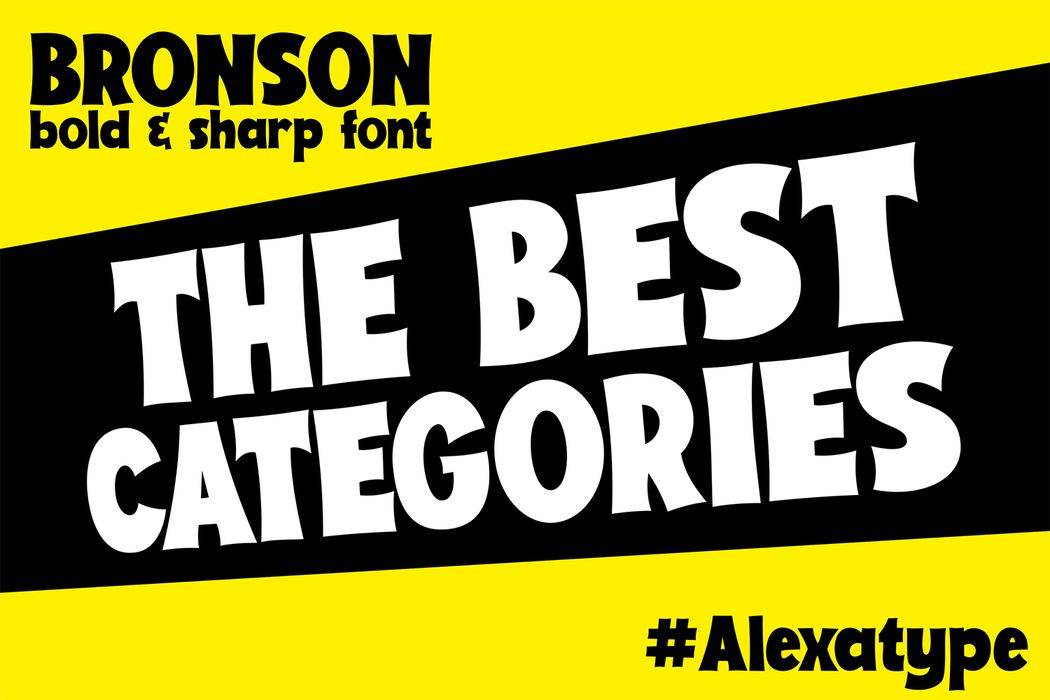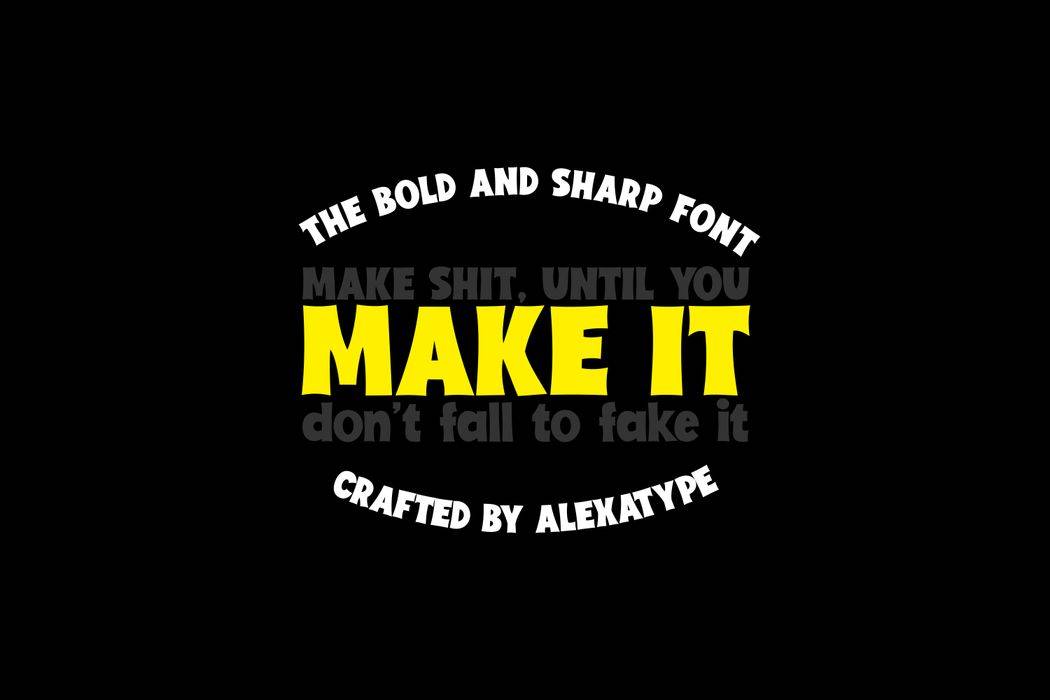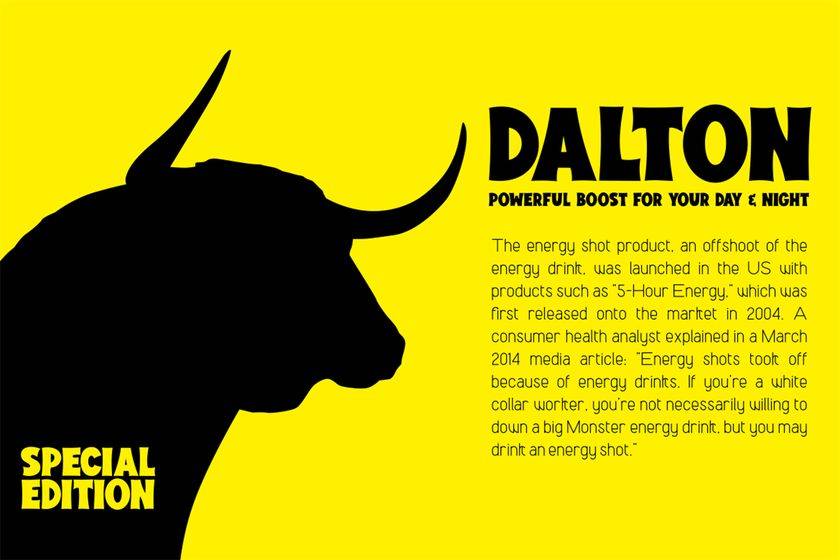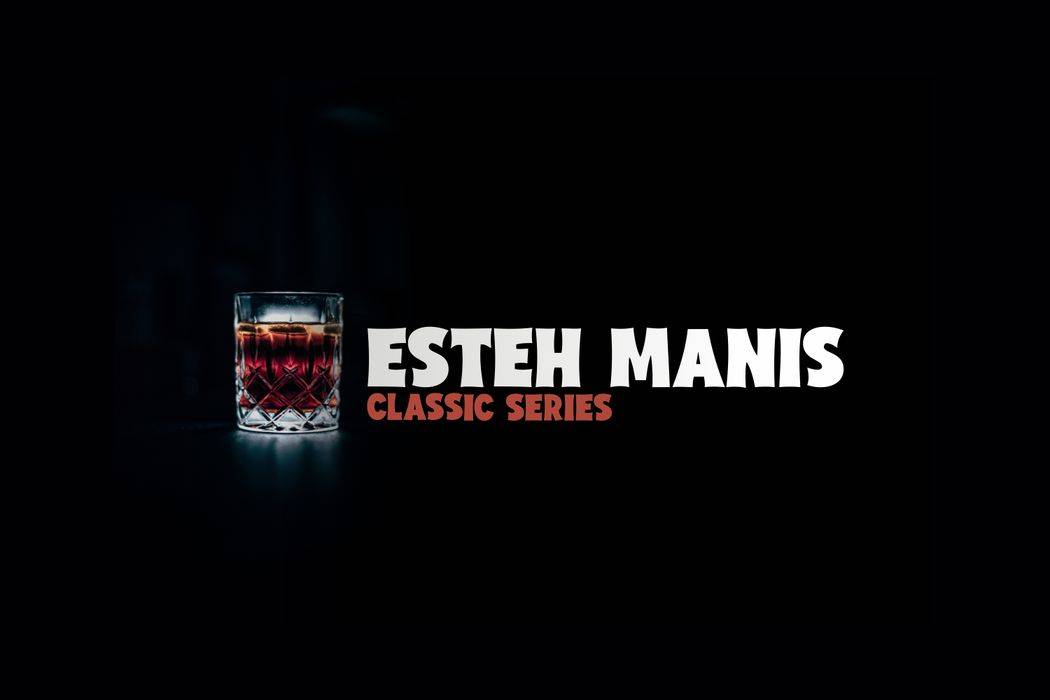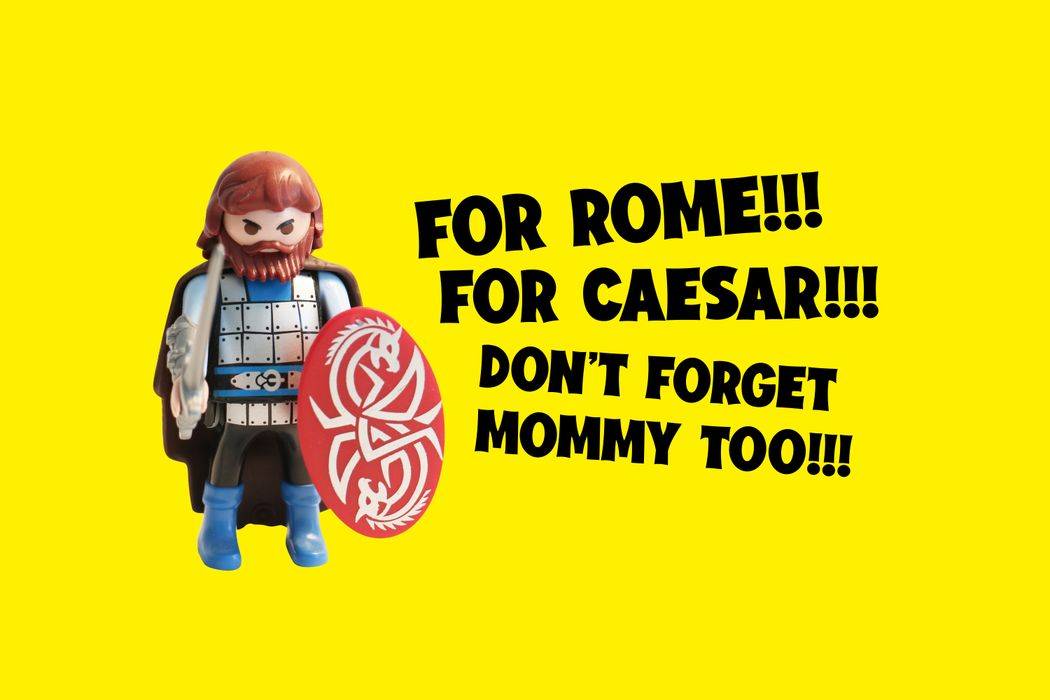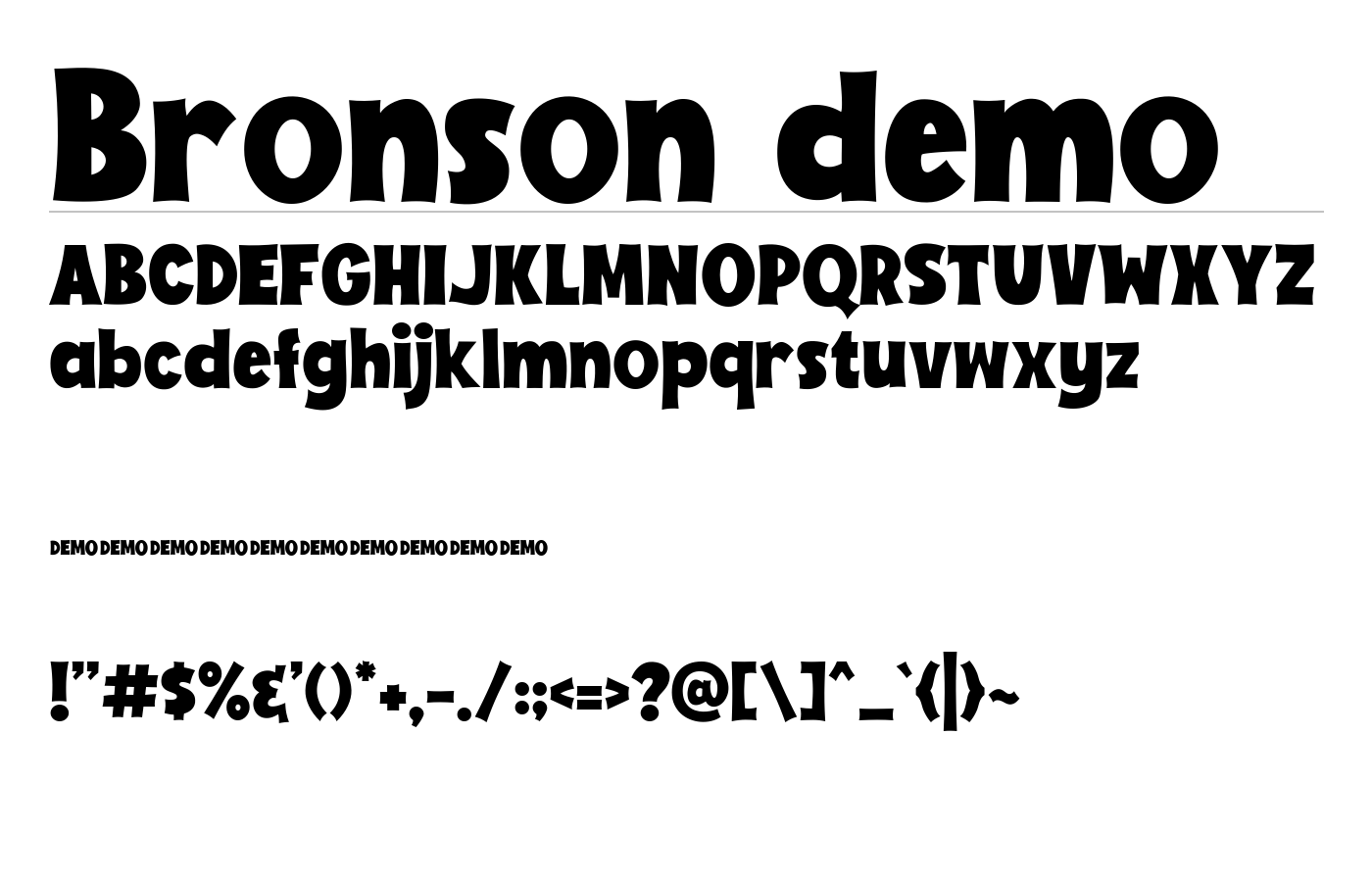
Bronson is a bold, playful sans serif font with thick, chunky letterforms and slightly irregular edges that give it a friendly, hand-crafted feel. Its wide, heavy shapes and moderate x-height make it ideal for eye-catching headlines, logos, and branding that want to convey a fun, approachable personality. This font works best in creative projects and packaging where a strong, whimsical statement is needed.
Bronson Font
About Bronson Font
| Font family | Bronson Font |
| Release date | 2019-07-08 |
| Designer | Sahirul Iman, semarang |